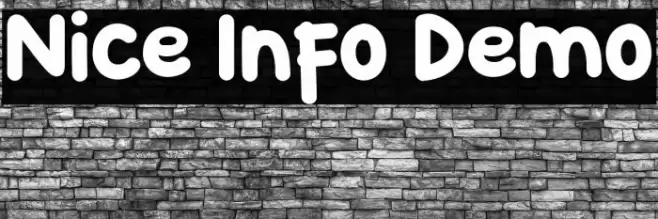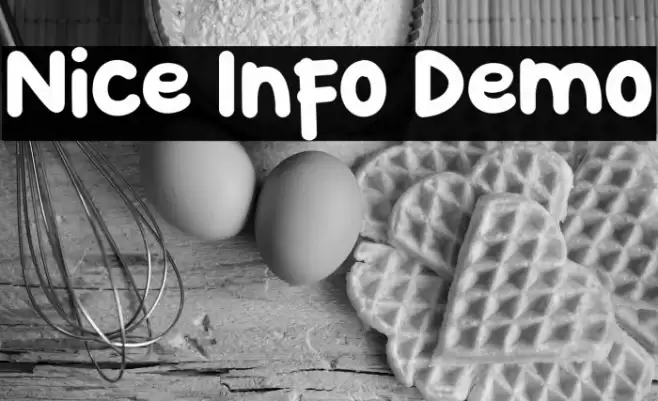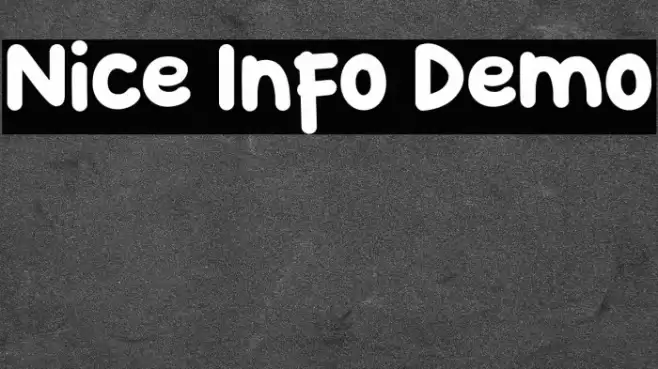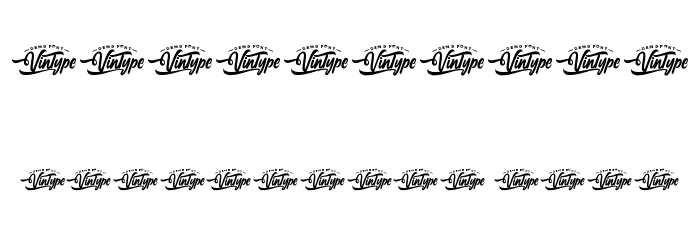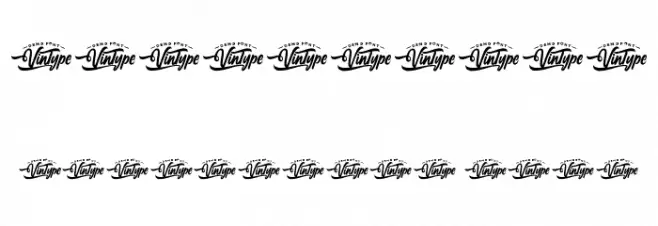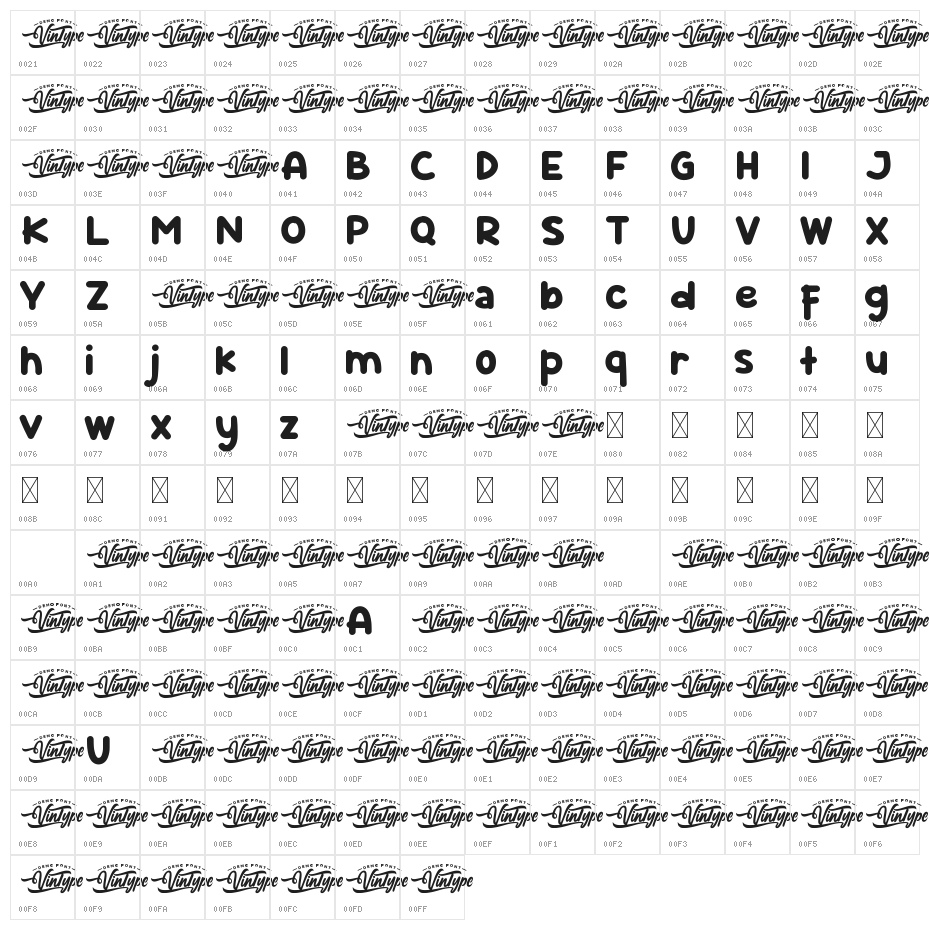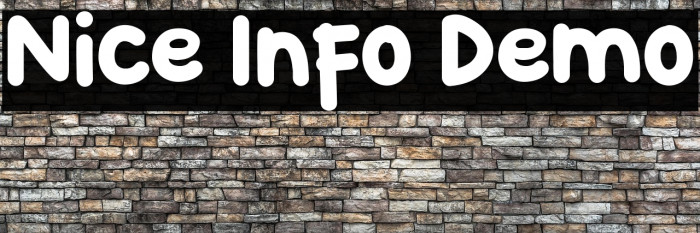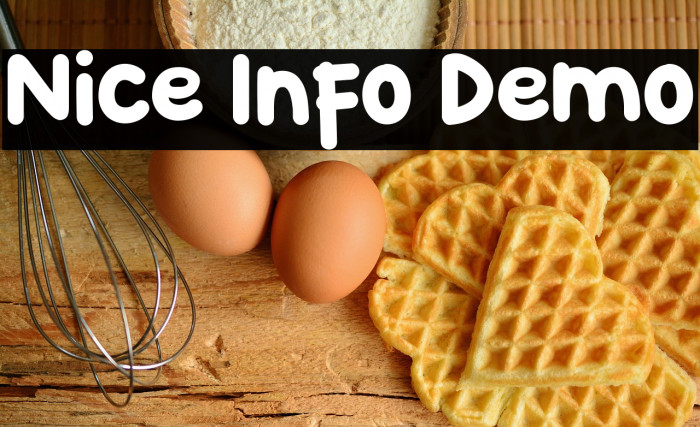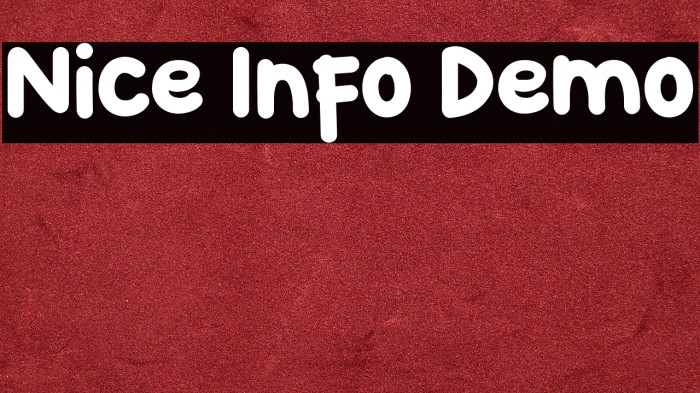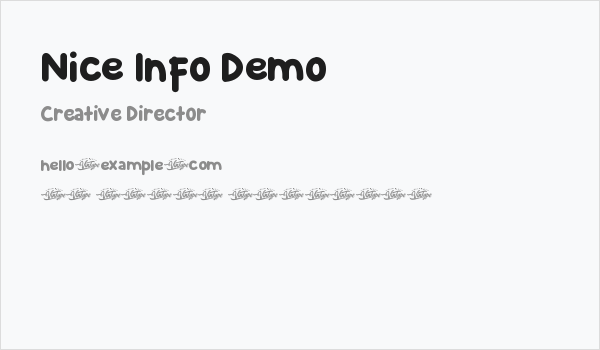
Nice Info Demo Font
Nice Info Demo Description
This font features a playful and rounded style, characterized by its bold and friendly appearance. The letters are uniformly thick, giving it a consistent and approachable look. The rounded edges and smooth curves contribute to its informal and casual vibe, making it suitable for projects that require a touch of whimsy and warmth. The font maintains a uniform stroke width throughout, ensuring readability while adding a unique character to the text. Its design is both modern and versatile, making it a great choice for a variety of creative applications.
A playful, rounded font with a bold and friendly appearance from Uncategorized fonts.
- Proposed Projects: Ideal for children's books, playful branding, casual invitations, and fun social media graphics.
- Use Case: Headlines, Logos